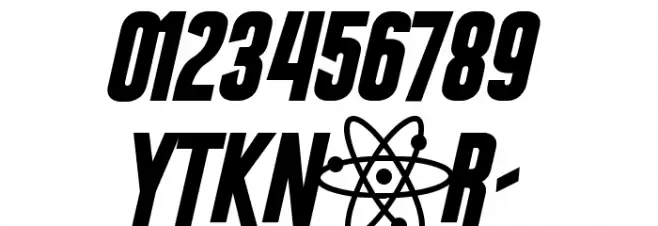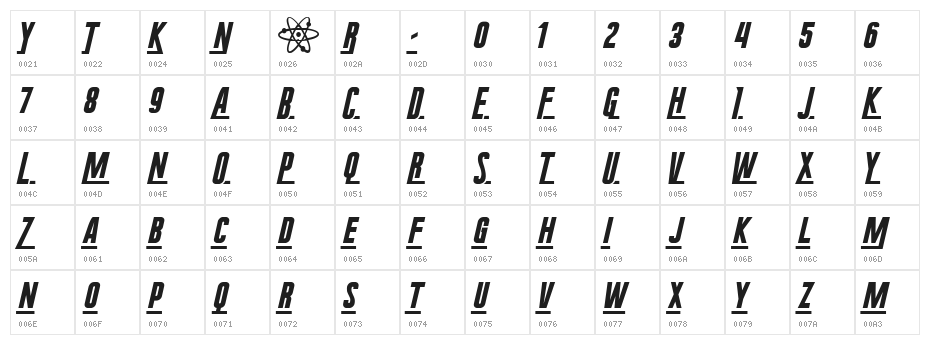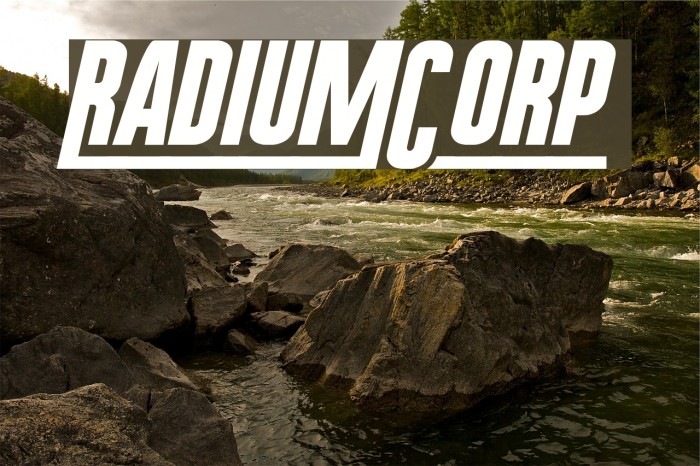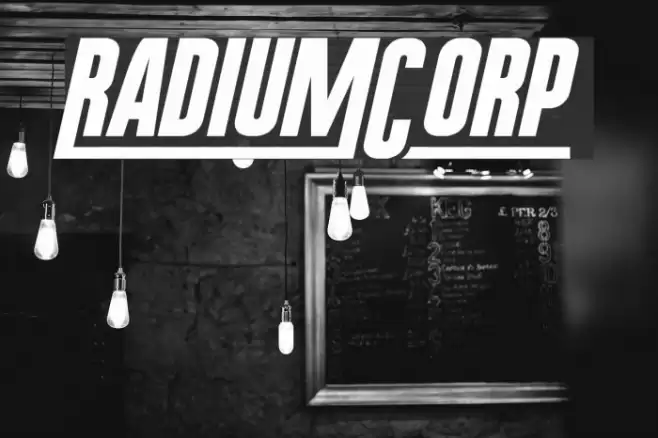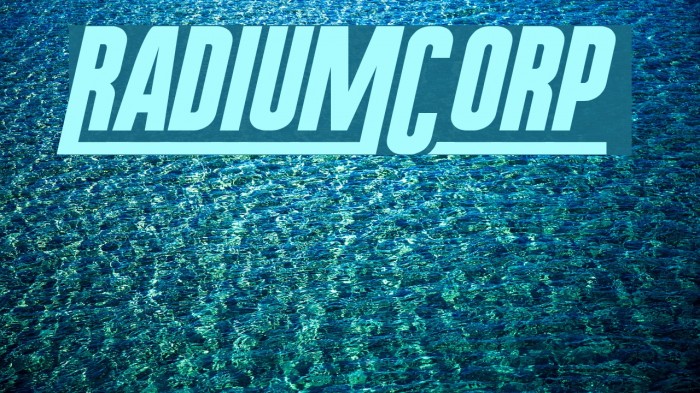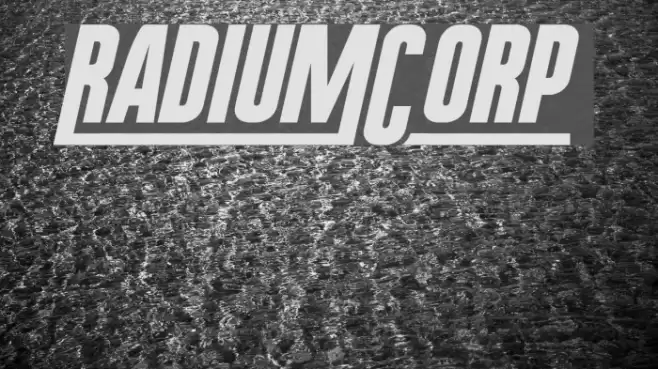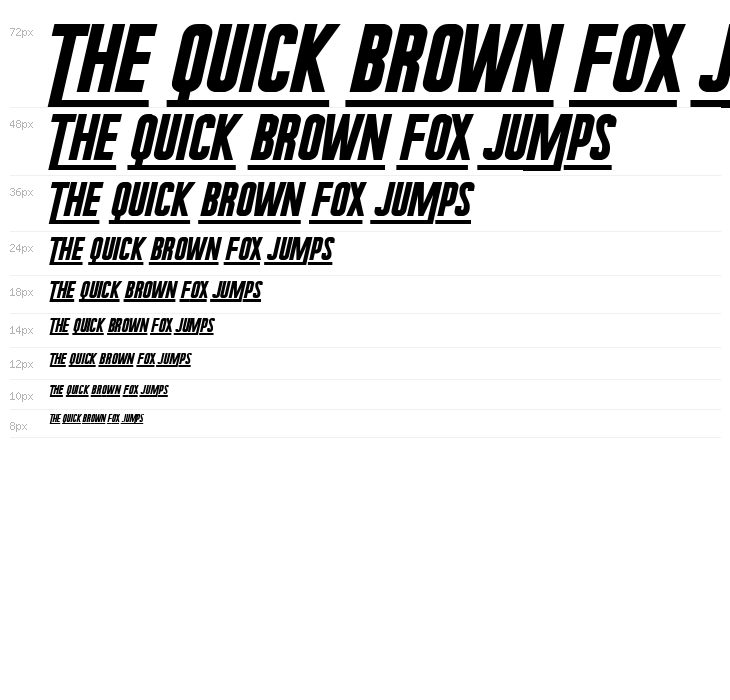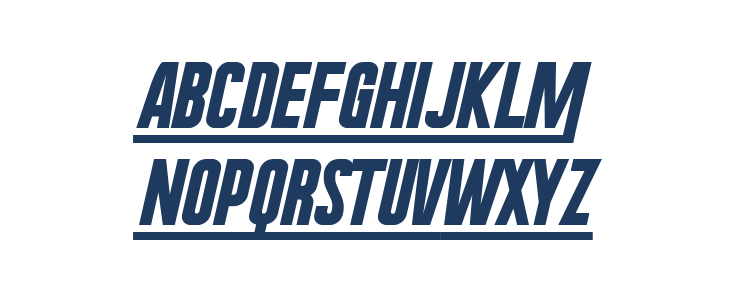
RadiumCorp Font
RadiumCorp Description
This font exhibits a bold and dynamic style with a strong presence. The characters are sharply angled, giving a sense of motion and energy. The uppercase letters are particularly striking, with a slight slant that enhances their boldness. The numbers and special characters maintain this energetic style, ensuring consistency across all elements. The font's design is modern and impactful, making it ideal for attention-grabbing headlines or branding projects that require a strong visual identity.
| Proposed Projects | Ideal for branding, advertising, and headlines that require a strong visual impact. |